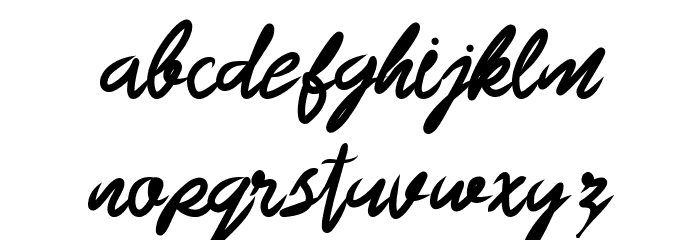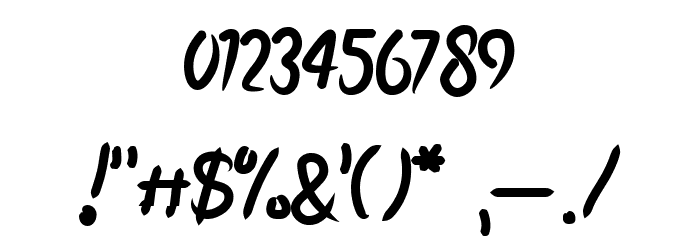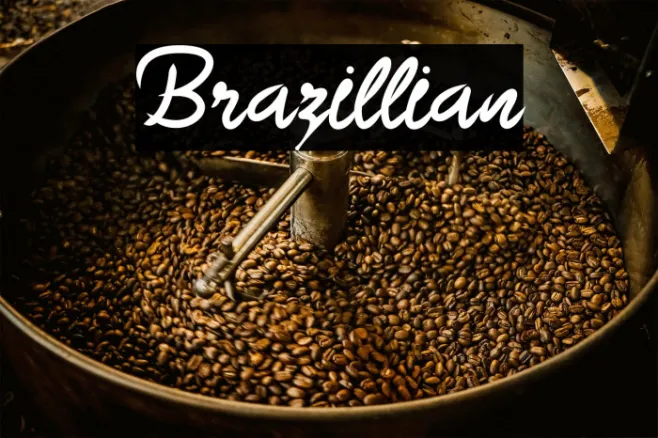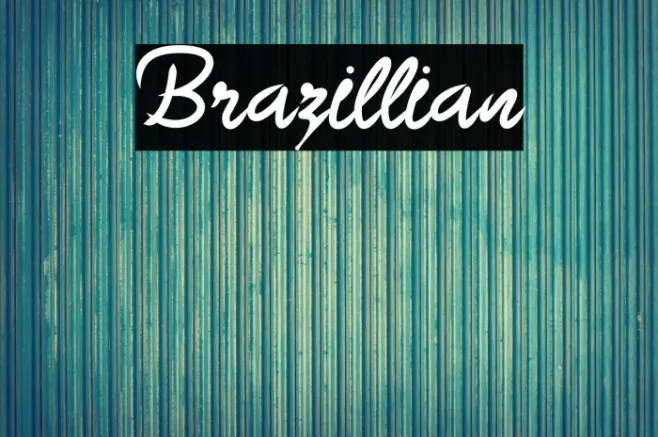
Brazillian Font
This font features a dynamic and flowing script style, characterized by its elegant and cursive letterforms. The uppercase letters exhibit a graceful, sweeping motion, while the lowercase letters maintain a consistent fluidity, enhancing readability. The numerals are well-integrated into the design, maintaining the same cursive aesthetic. Special characters are crafted with the same attention to detail, ensuring a cohesive look across all glyphs. The font's overall appearance is both sophisticated and approachable, making it suitable for a variety of design applications.
A dynamic and flowing script font with elegant cursive letterforms.
- Proposed Projects: Ideal for wedding invitations, greeting cards, branding projects, and elegant packaging designs.
- Overall Style: Elegant
- Use Case: Logos, Invitations, Decorative text